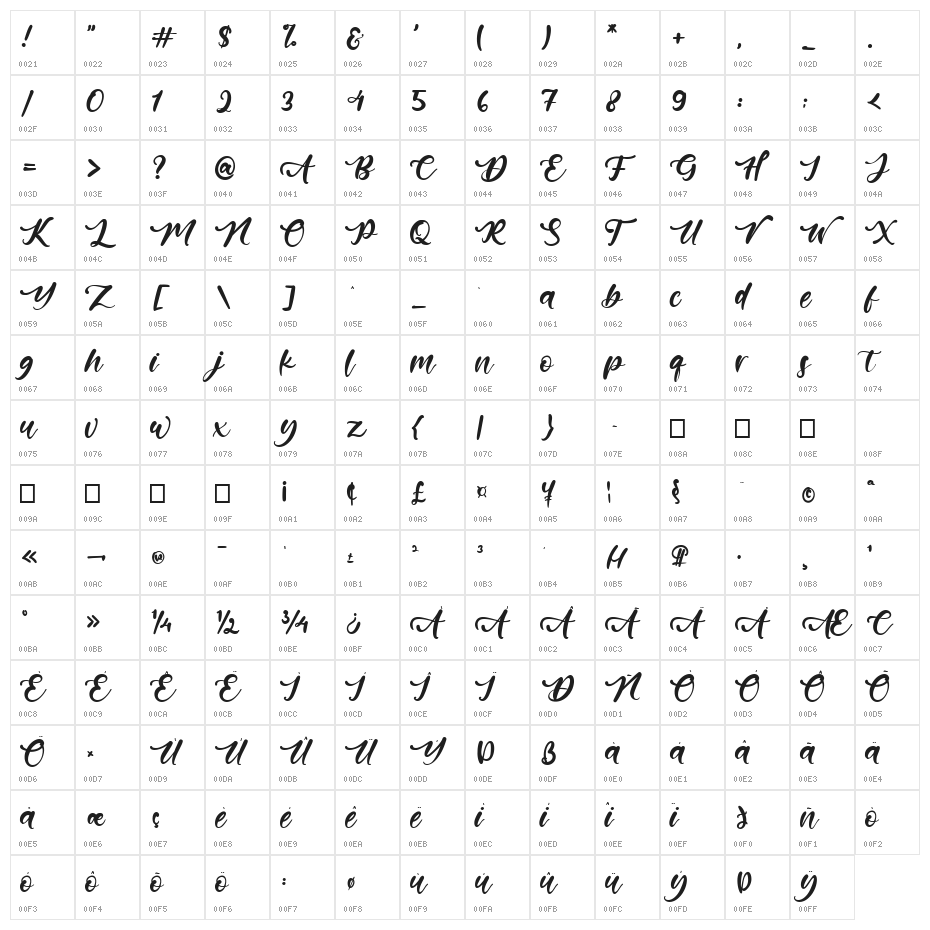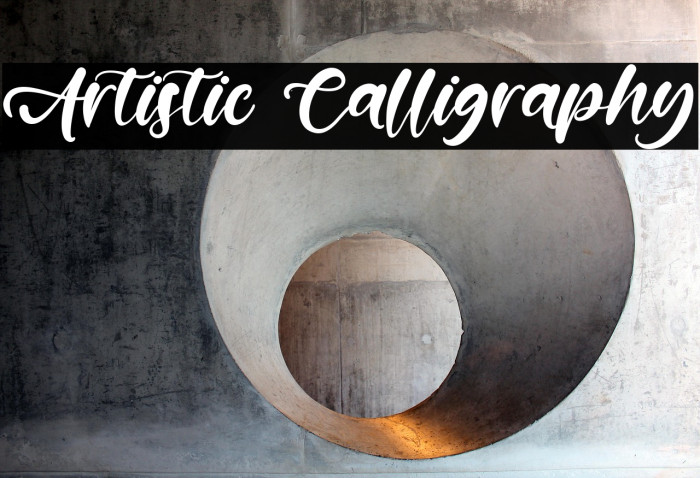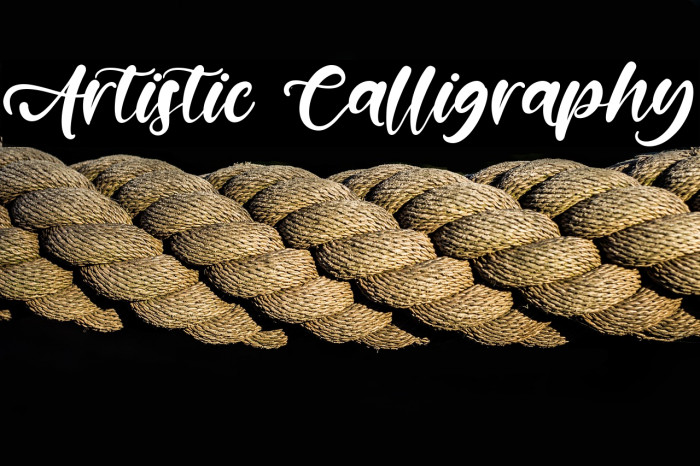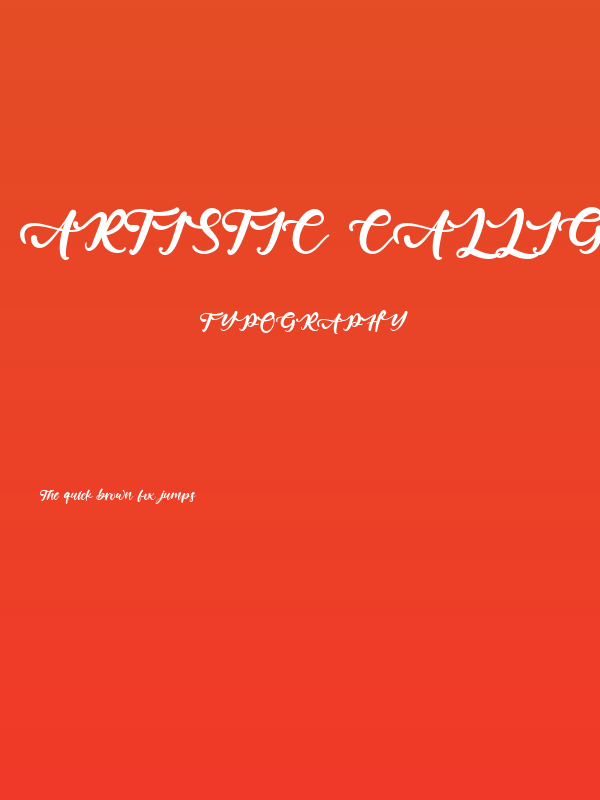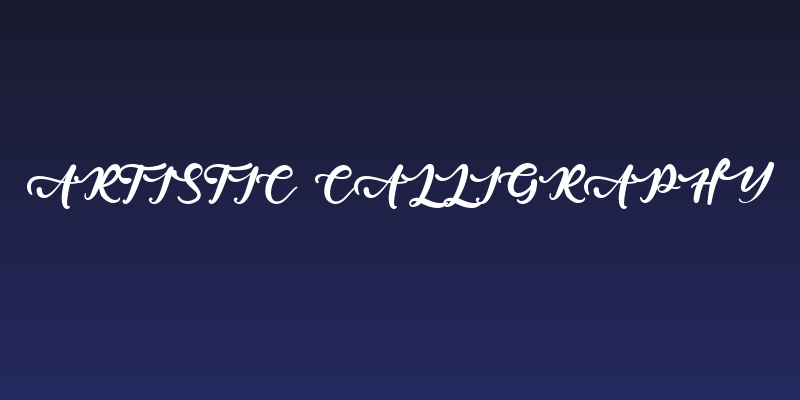
Artistic Calligraphy Font
Artistic Calligraphy Description
This font embodies a flowing, artistic calligraphy style with elegant curves and flourishes. Each character is crafted with a sense of movement, giving it a dynamic and lively appearance. The uppercase letters are particularly ornate, featuring sweeping lines and intricate details that enhance their visual appeal. Lowercase letters maintain a consistent style, with smooth connections that suggest a handwritten quality. The numerals and special characters are equally expressive, maintaining the overall aesthetic. This font is ideal for projects that require a touch of sophistication and creativity.
| Proposed Projects | Ideal for wedding invitations, greeting cards, branding, and artistic projects requiring a sophisticated touch. |